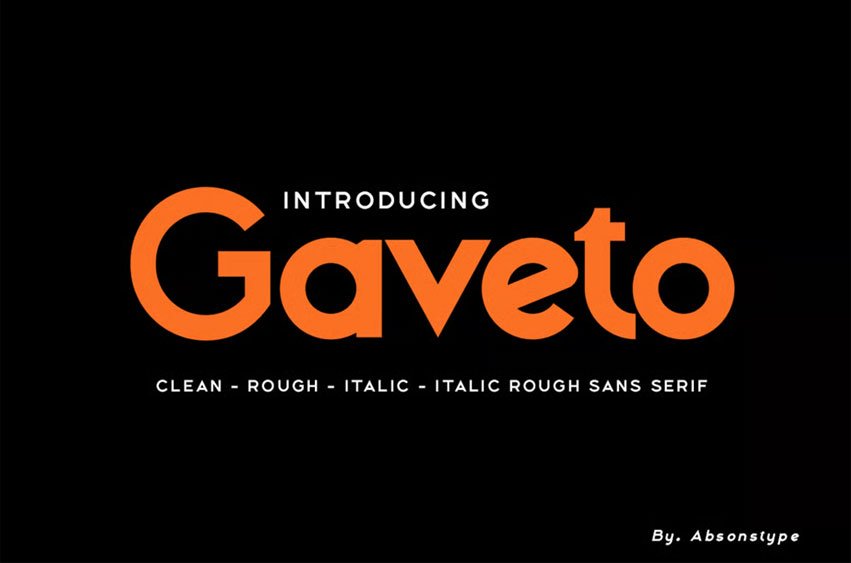
Gaveto Font is the Geometric Sans Serif with 2 styles (Clean and Rough) with combine uppercase and lowercase looks and feel nice balanced. Provide with ligatures in Uppercase variant style make the design letter looks nice. Honestly it works perfectly for headlines, logos, posters, packaging and much more.
Font Features :
• Regular version include Italic version
• Rough version include Italic version
• Character set A-Z in Uppercase and Lowercase
• Ligatures
• Numerals & Punctuation
• Accented Characters
• Multiple Languages Supported